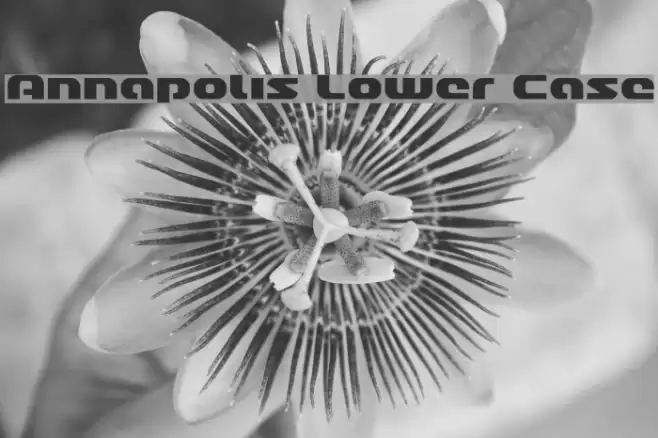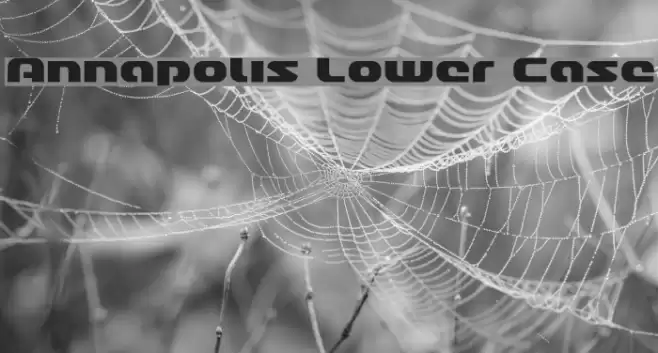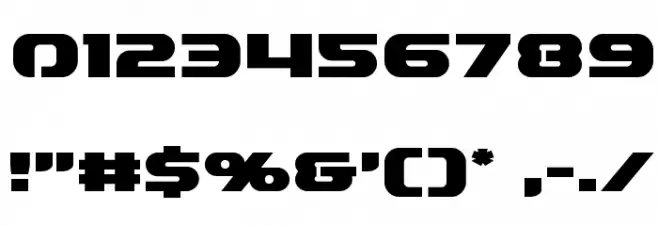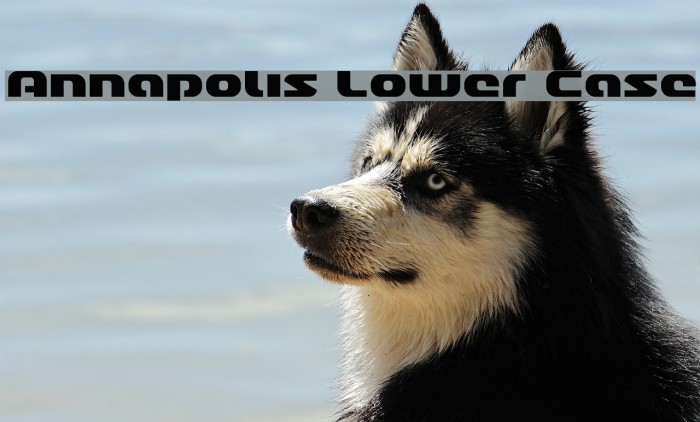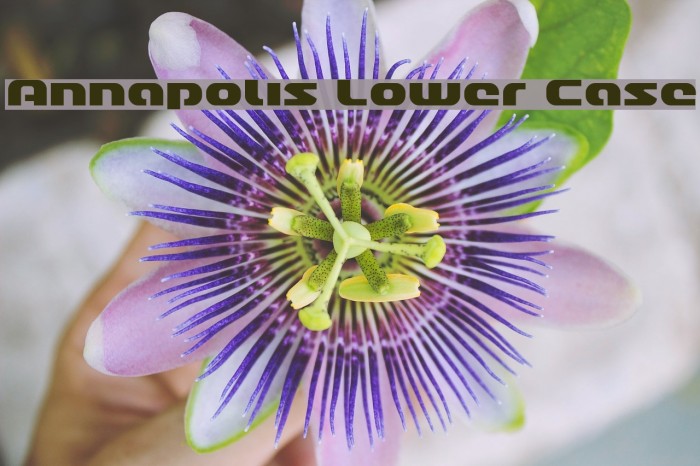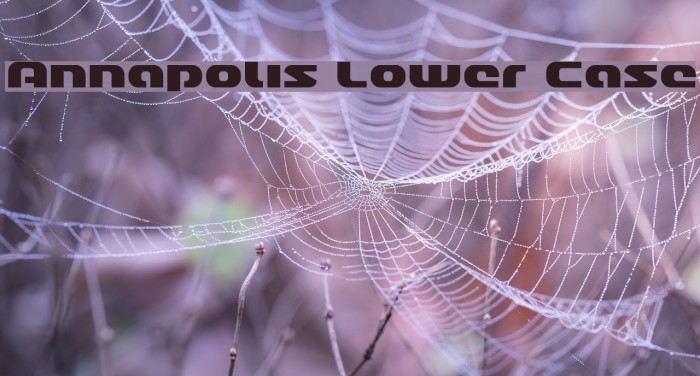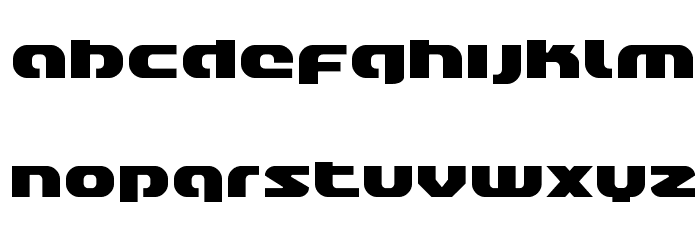
Annapolis Lower Case Font
Annapolis Lower Case Description
This font features a bold and geometric style with a strong presence. The characters are designed with a modern aesthetic, showcasing a uniform thickness throughout each letterform. The uppercase letters have a blocky appearance with rounded edges, while the lowercase letters maintain a similar structure, offering a cohesive look. The numerals are consistent with the overall design, providing a clear and legible appearance. Special characters are included, matching the bold and structured style of the alphabet. This font is ideal for projects that require a contemporary and impactful visual element.
A bold, geometric font with a modern and cohesive design from Sci-fi fonts.
- Proposed Projects: Ideal for branding, headlines, posters, and digital media that require a strong visual impact.